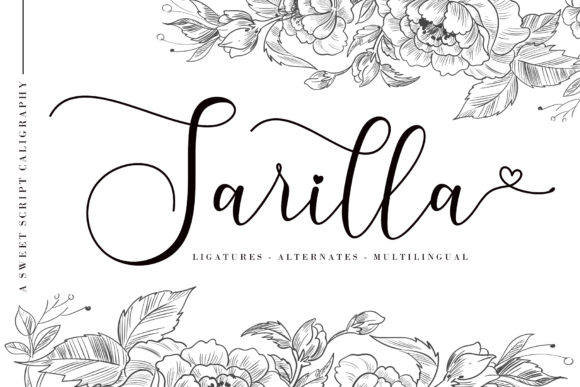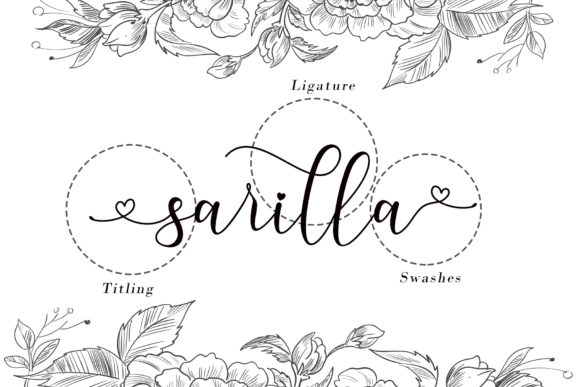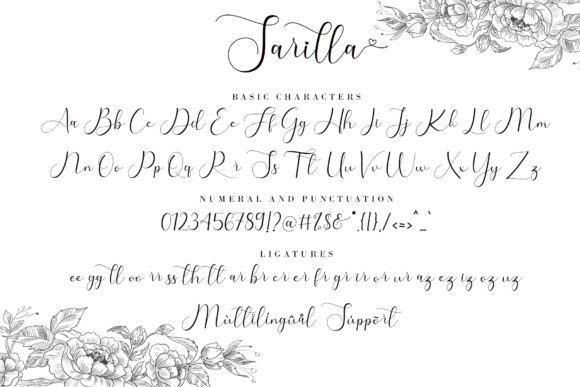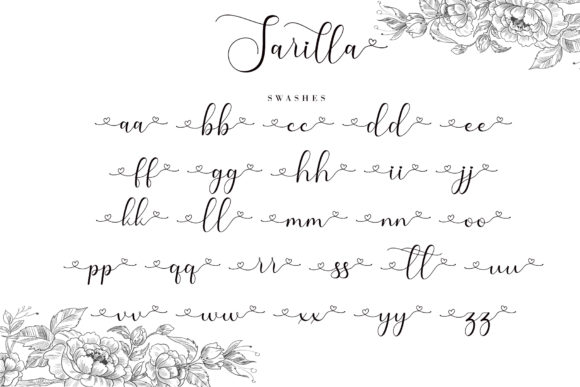
About Sarilla Font
Sarilla is a sweet, delicate, elegant, and flowing handwritten font. It has beautiful and well balanced characters and as a result, it matches a wide pool of designs. This font is PUA encoded which means you can access all of the glyphs and swashes with ease!